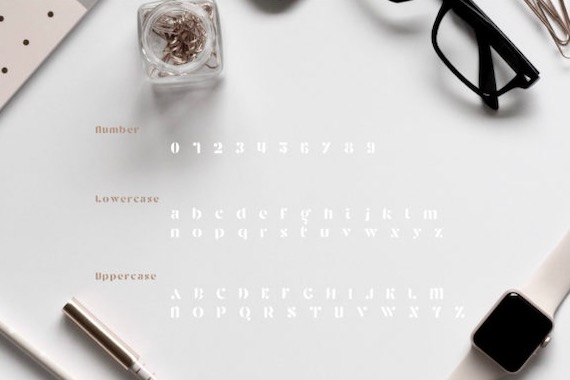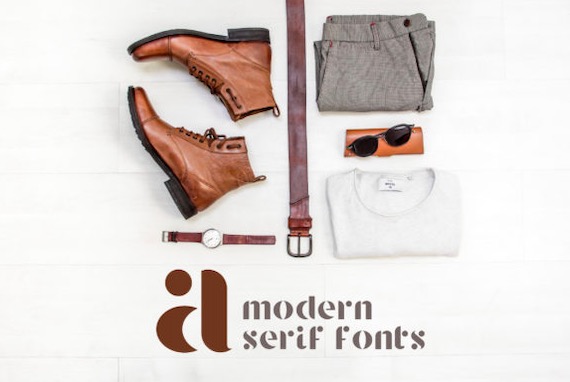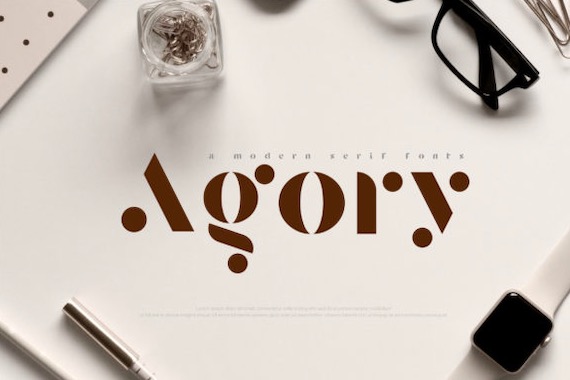
Agory Font is an incredibly powerful & unique display typeface that was created and shared by Geengraphy. It’s masterfully made to become a true favorite, this font has the potential to bring each of your creative ideas to the highest level!
Agory Display Font